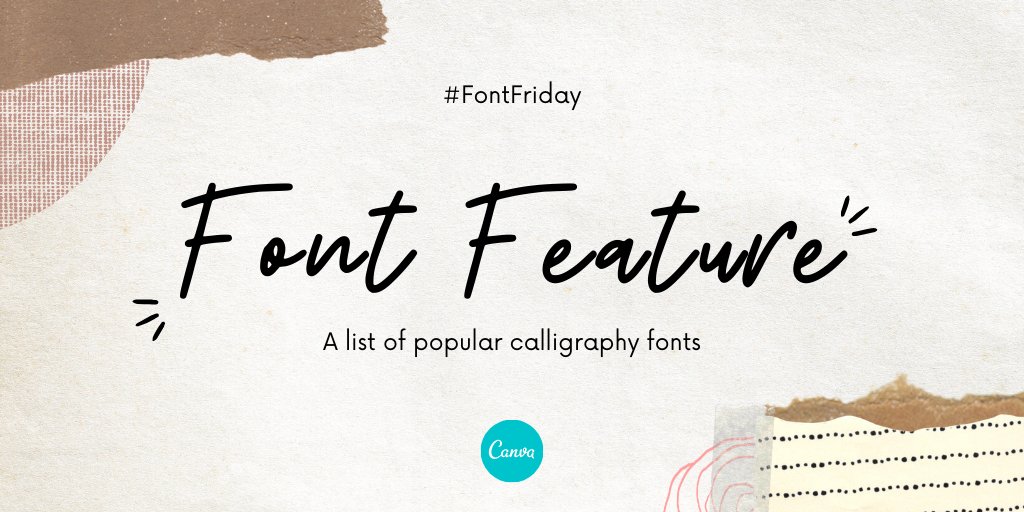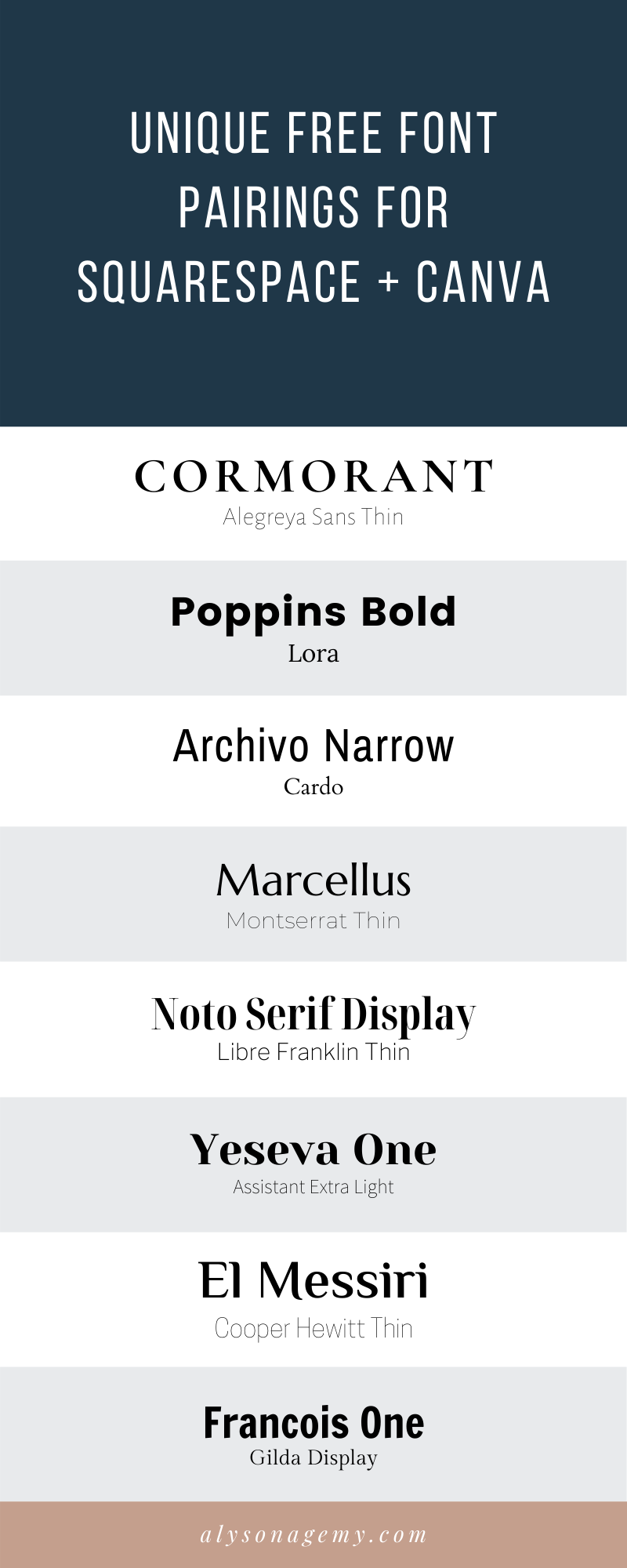
In case you want to work with a bunch of them together do check out canvas ultimate guide to font pairing.
Most popular canva fonts. Garamond is so obviously the best font that it would be offensive to try to justify it. In this article weve created 20 unique font combinations to help give you a little inspiration when getting started on creating your own brand in canva pro the design tool built for the non designer to help your brand shine. If youre in the process of hunting for one scroll down. Many of these work best when set at larger sizes but weve also included a few that are more versatile and lend themselves to parts of a design other than headlines or quotes.
What i personally love about it is how each trailing letter has a dot linked to it. Canva has taken the pain out of font pairing by putting together great font combos for your designs. Find the best matches to your favourite typeface. Below we have put together a list of the most popular fonts for you to choose from for your printing and design needs.
Fonts affect to a large extent how your typographic material looks and feels to the audience so it is important to choose the font carefully for your printing publishing web designing and other tasks. In this post we have compiled together some of best modern sans serif fonts for your latest project or to inspire you for your next assignment. On the left hand side is the name of the canva font in the actual font so you can see what it looks like and find it easily on canva. Here without further ado is a highly subjective ranking of common andor notorious fonts listed from most outstanding to most undesirable.
Long live garamond greatest of all the fonts. Its timeless elegant understated and has every detail just right. However despite being quite a classic font its enduring popularity can be attributed to its universal modern appeal. Otherwise check out these fonts.
Vanity is a chic font specifically made for fashion magazines and blogs. Weve found 50 awesome and totally free futuristic fonts you can use to design. This is another font designed by hendrick rolandez. Ive tried to pick script fonts that are easy to read but still interesting and paired them with a simple bold font.
The font has clean lines which makes it extremely easy to read even when there is a lot going on in the background. Here at canva we know how difficult and time consuming it can be to search for the perfect fonts every time you need one for a design project. Helvetica is one of the worlds most popular fonts due to its versatilitythere are more than 100 variations.